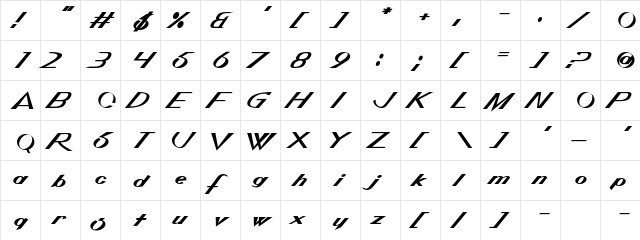
Ominus Regular
| Designer | Allison JJ |
Design Context for Ominus Typeface
Ominus offers clean, dependable letterforms without strong stylistic allegiance, making it a practical choice for designers who need flexibility.
Pro Tip: Use Ominus in both headline and body roles to test its range before committing to a single application.